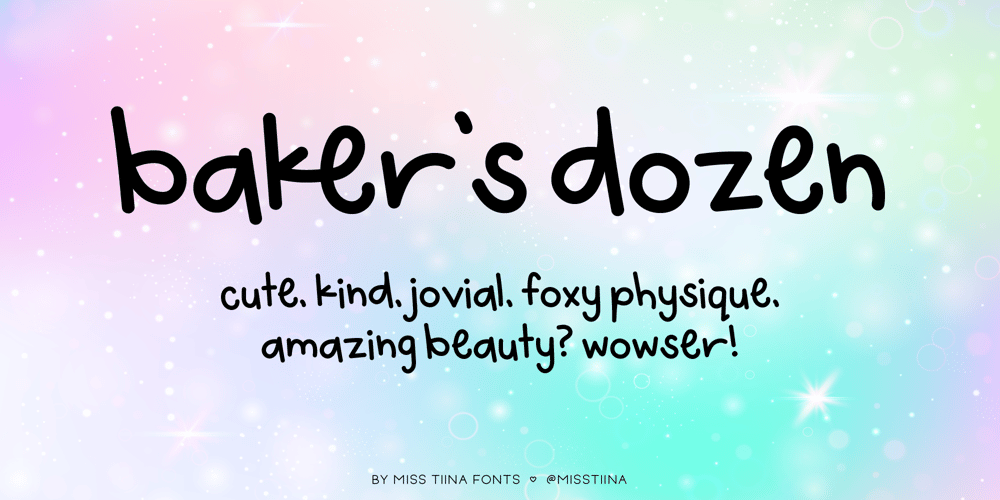
MTF Bakers Dozen Font Family was designed by Tina Raparanta and published by Miss Tiina Fonts. MTF Bakers Dozen contains 1 styles and family package options. Baker’s Dozen is a lovely display font that’s sure to put a smile on your face. It is a delightful handwritten font that complements anything nicely. Slightly minimalistic and very tidy, this typeface is sure to please! Its charming, playful design features soft curves and whimsical details that evoke a sense of innocence and sweetness.